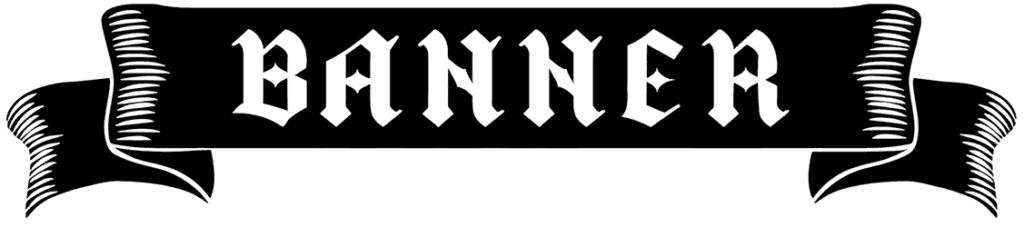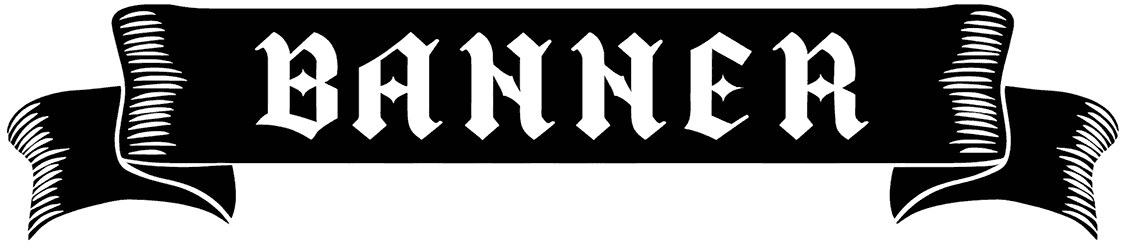
Banner Font
The Banner font is a good choice if you want your marketing materials to seem hip to the people who will be reading them. Despite the absence of lowercase letters, this banner font is ideal for a broad range of applications, including logos, flyers, and product packaging. Will you be stocking up on comparable products? If you go through the many initials and condensed fonts on RB, you’ll realize that we have a lot of choices.
Use [ ] { } < > ( ) for the ends and _ for a space/blank.